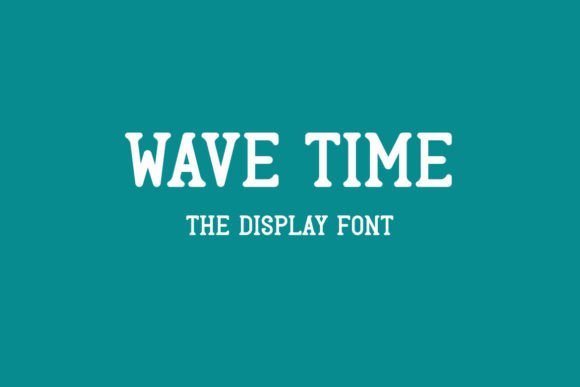
Prepare to be captivated by Wave Time Font, a remarkable display font that exudes joy and camaraderie. Its vivacious personality shines through, making it the perfect choice for designers and creatives seeking to add a touch of playfulness to their projects.
Journey into a world of limitless possibilities with Wave Time Font. Whether you're crafting captivating show flyers, designing eye-catching posters, or adding a touch of whimsy to your social media graphics, this font is your ultimate companion. Unleash your creativity and let Wave Time Font transform your designs into vibrant expressions of your imagination.
With Wave Time Font, you'll discover a font that seamlessly blends style and functionality. Its meticulously crafted characters dance across the screen, captivating audiences with their unique charm. Experience the power of a font that not only elevates your designs but also resonates with your target audience, leaving a lasting impression that will keep them coming back for more.
Immerse yourself in the world of Wave Time Font and witness the transformation of your creative projects. Its versatility knows no bounds, allowing you to effortlessly adapt it to a wide range of design concepts. Whether you're working on branding projects, creating invitations, or designing merchandise, Wave Time Font seamlessly integrates into your vision, adding a touch of magic to every element.
Embrace the playful spirit of Wave Time Font and let your creativity soar. Its friendly and inviting personality will captivate your audience, drawing them into your designs and leaving them craving more. With Wave Time Font, you'll unlock a world of endless possibilities, where your imagination reigns supreme.